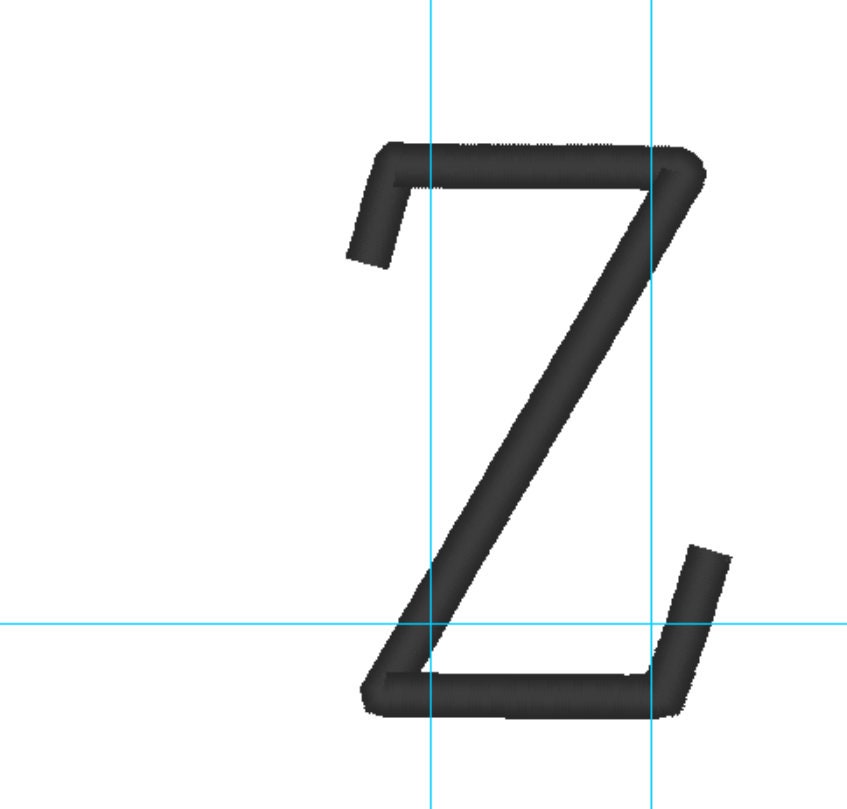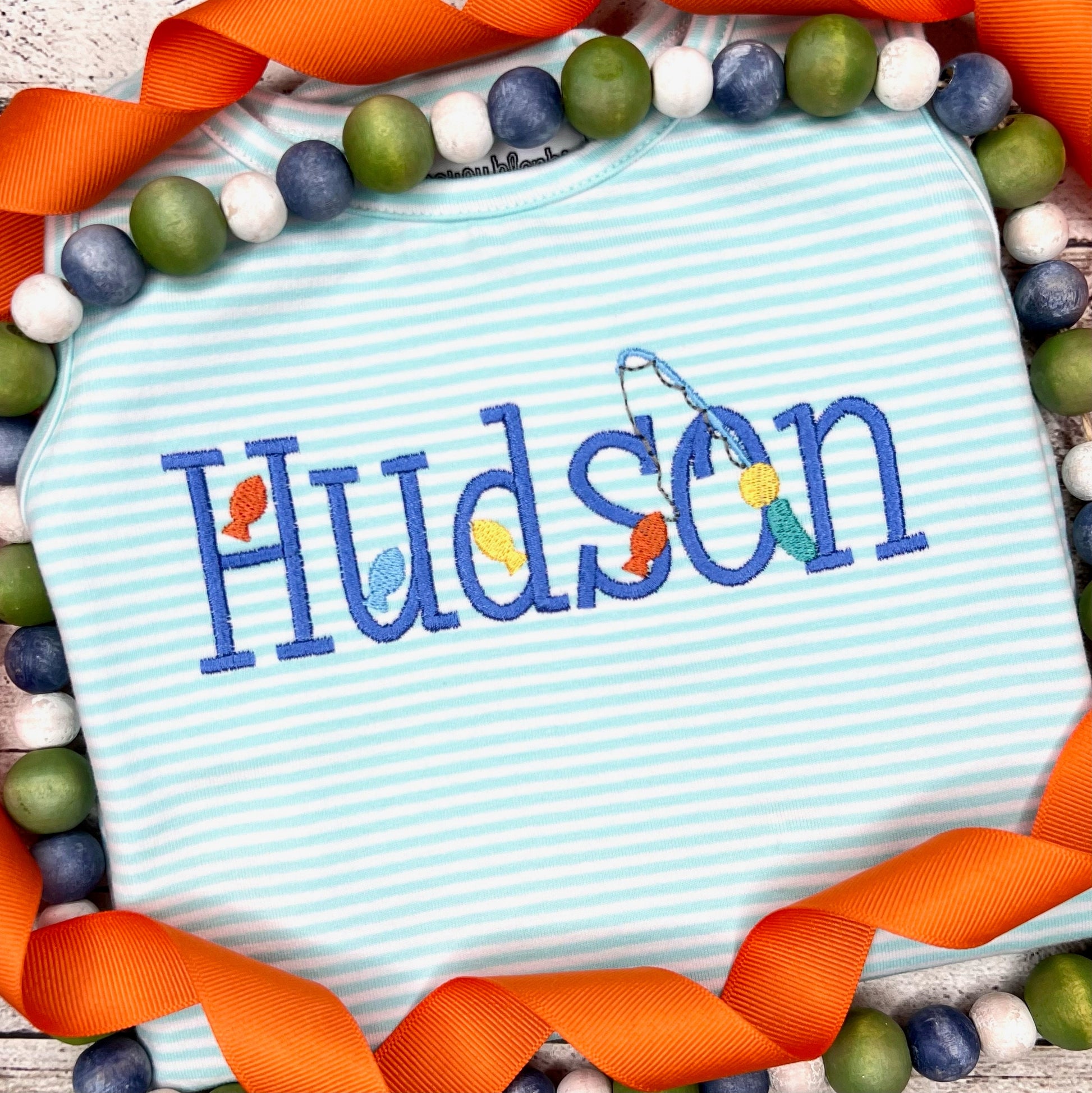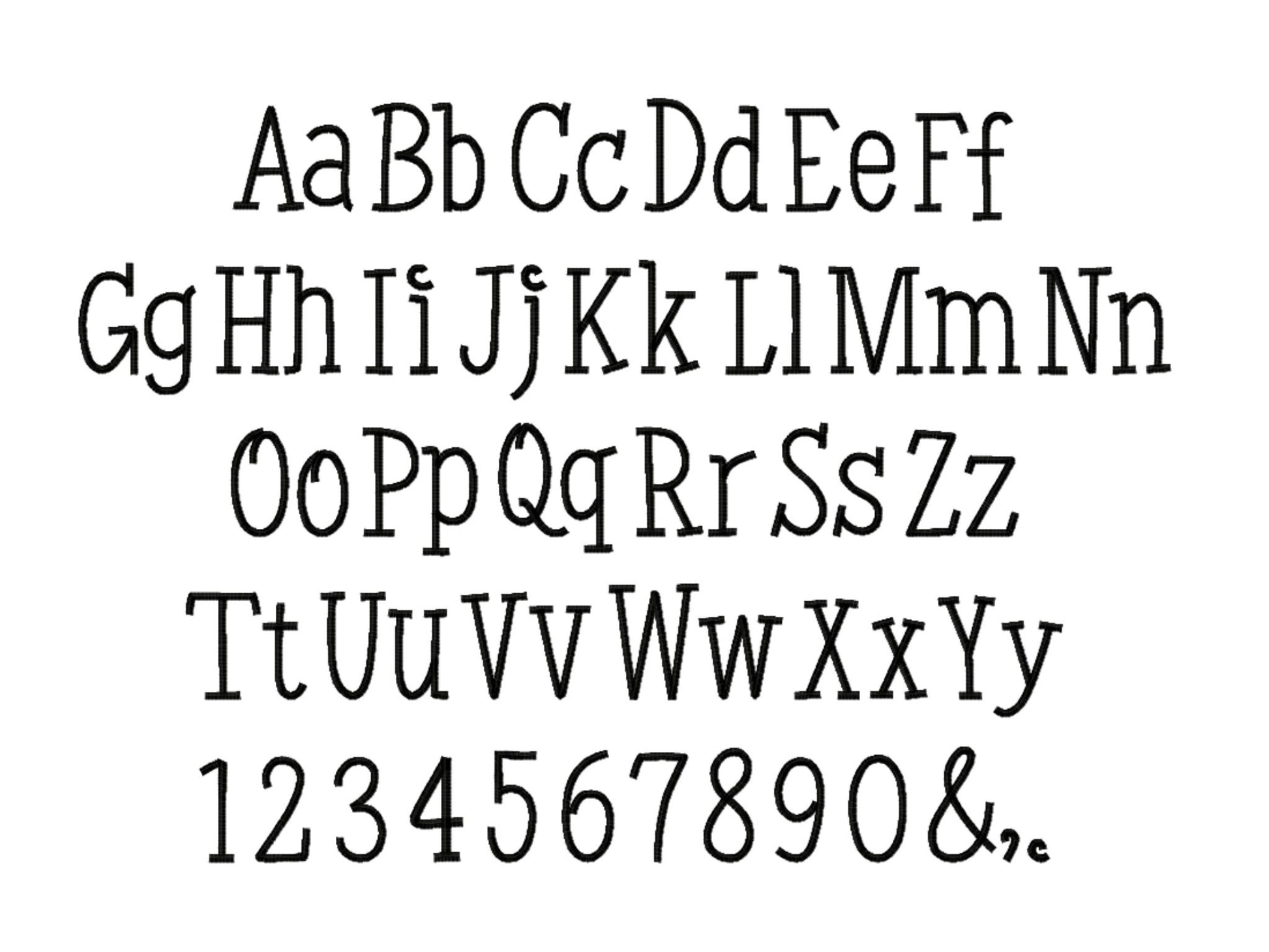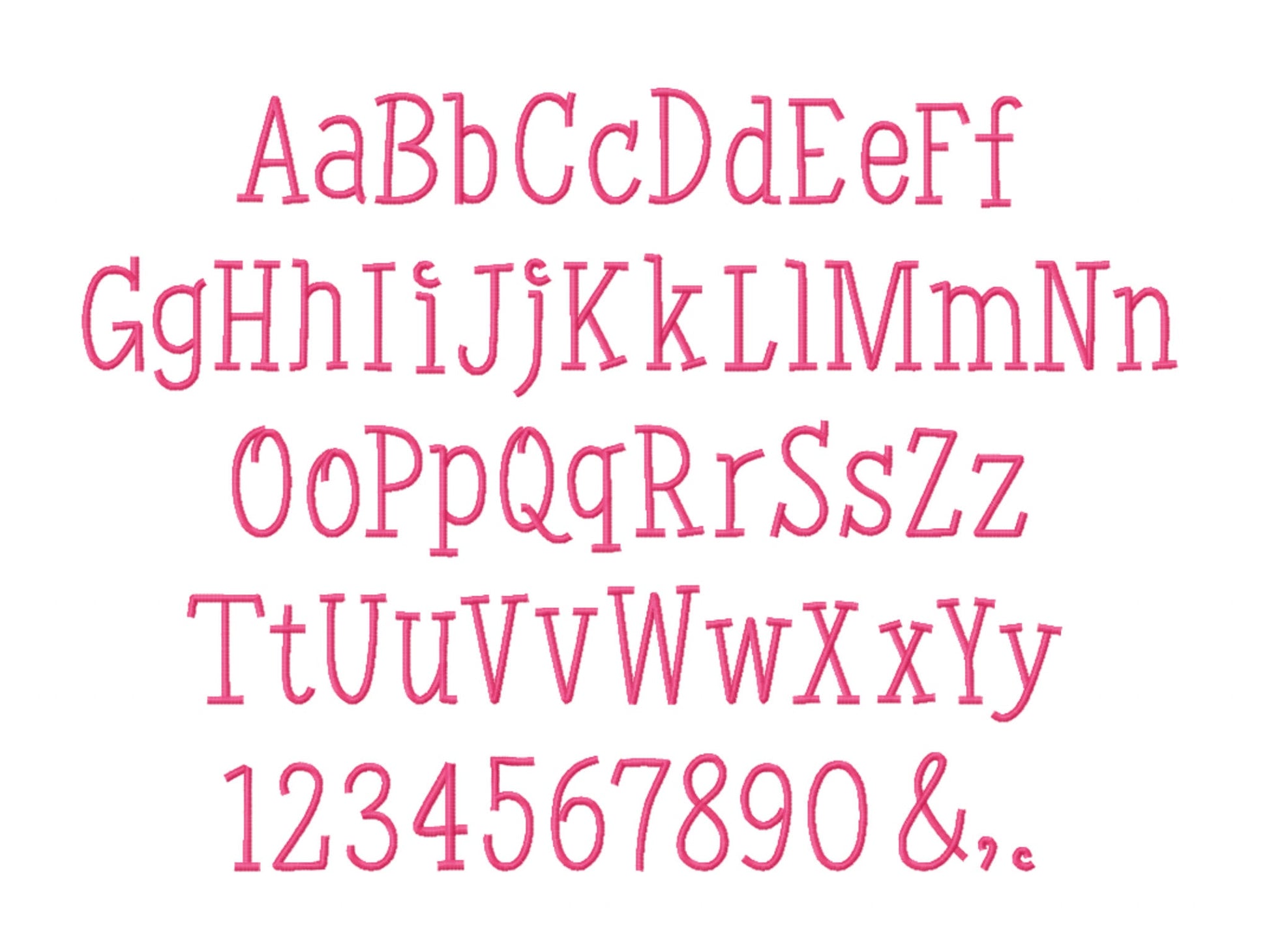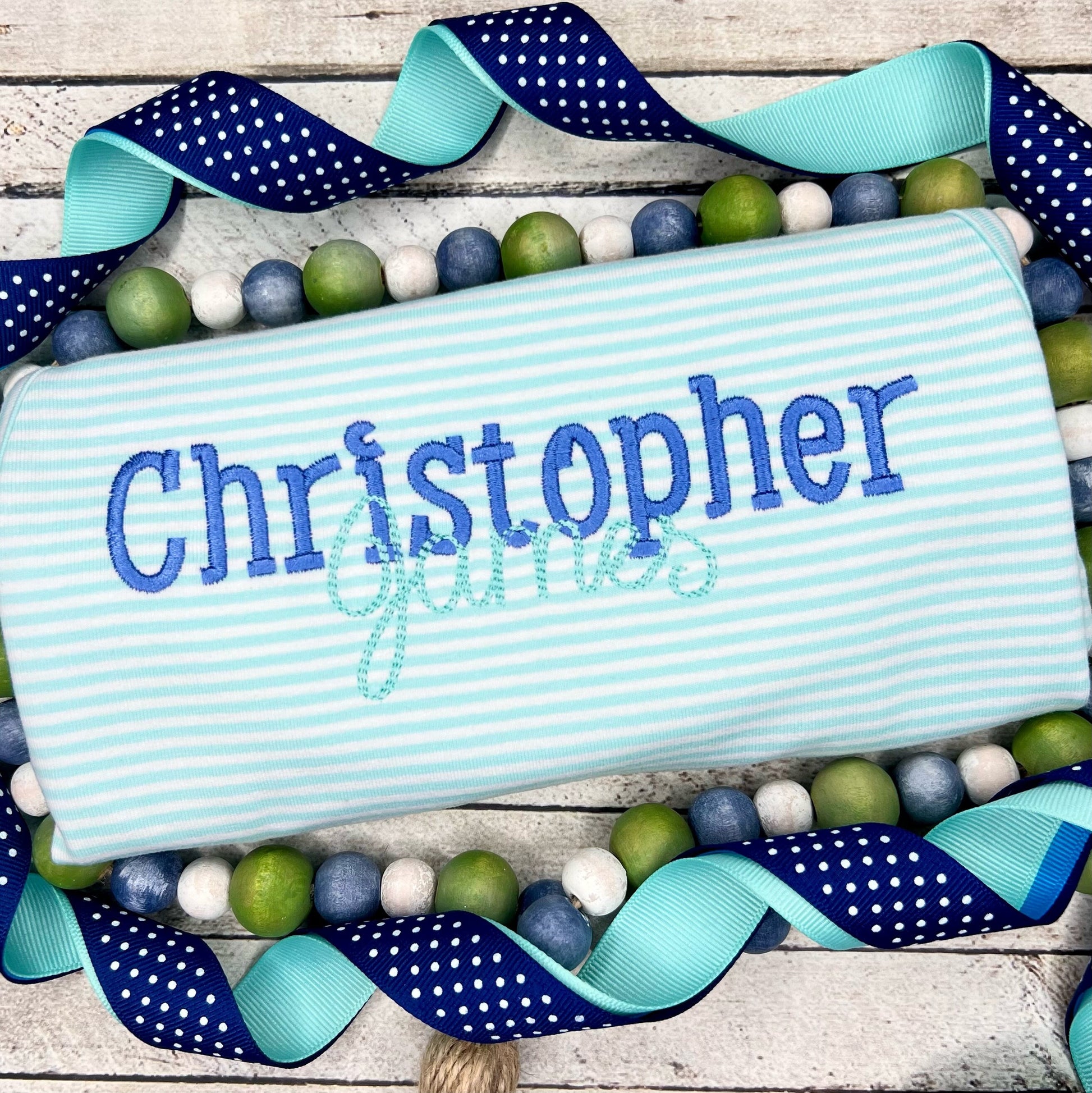
Satin Stitch Chalk Kids Font
Uppercase and lowercase letters, numbers 0 to 9 and punctuation, in eight sizes: 1.2, 1.5, 1.8, 2.3, 2.7, 3.3, 4 and 4.7 inches. Smooth satin stitch with a hand-drawn chalk look.
- Satin stitch chalk kids font
- Uppercase and lowercase letters, numbers 0-9, punctuation
- 8 sizes, 1.2 to 4.7 in